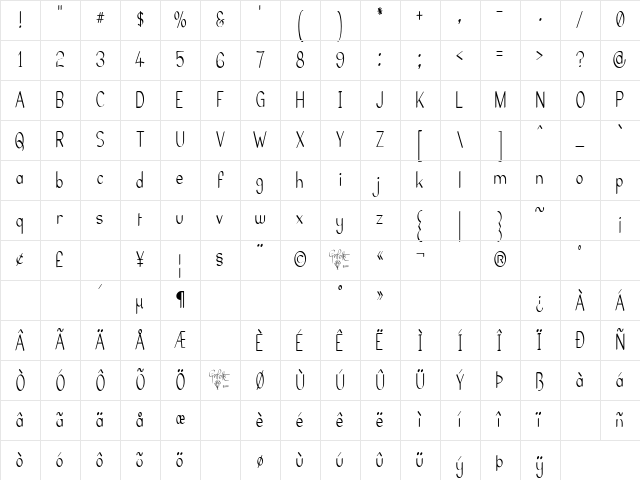
Elfar Normal Narrow G98 Regular Free Font
Elfar Normal Narrow G98 Regular
Design Context for Elfar Normal Narrow G98
Elfar Normal Narrow G98 is a composed and adaptable typeface that performs quietly and consistently across a wide range of design contexts. Its narrow stance lets it pack a punch even in space-constrained designs.